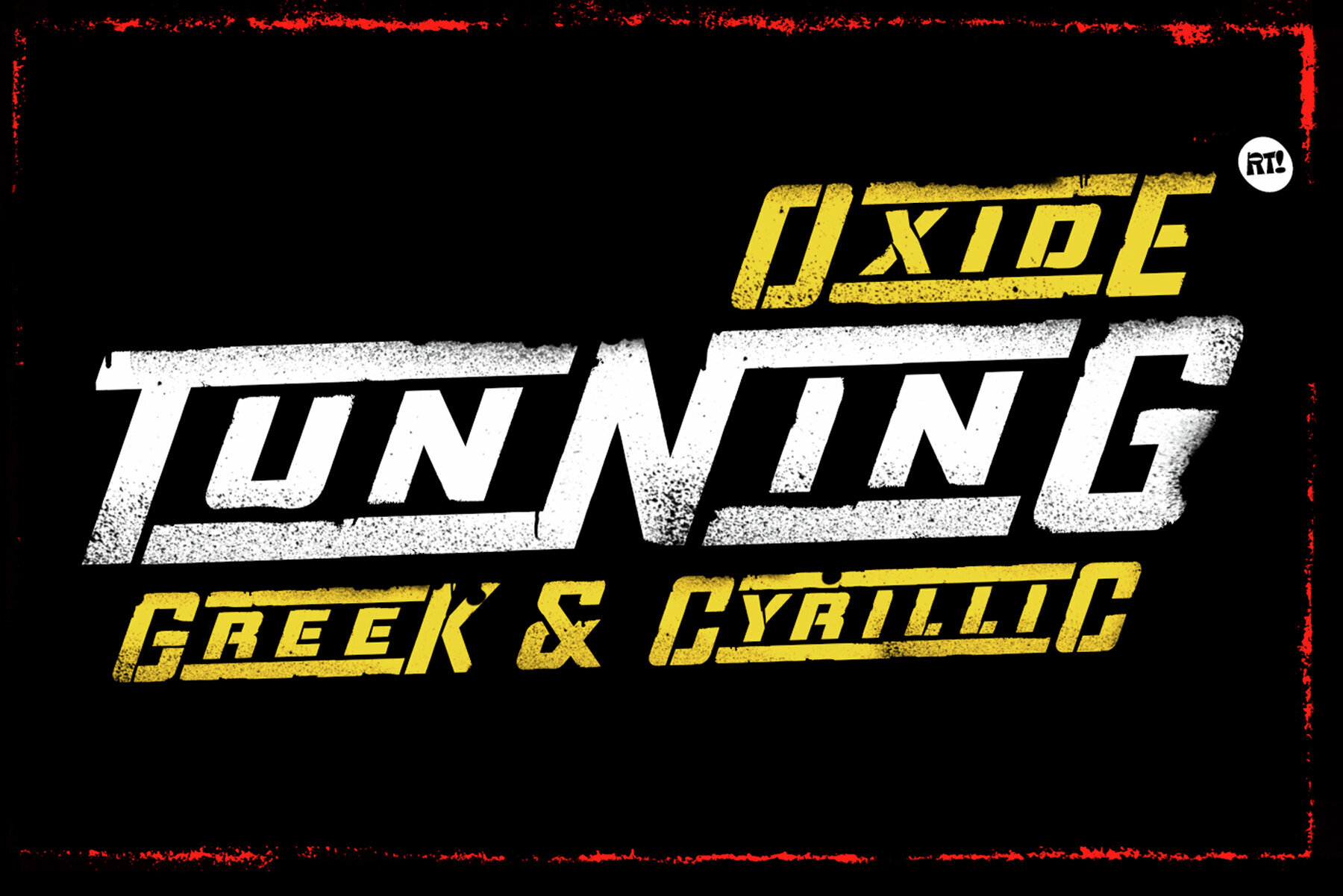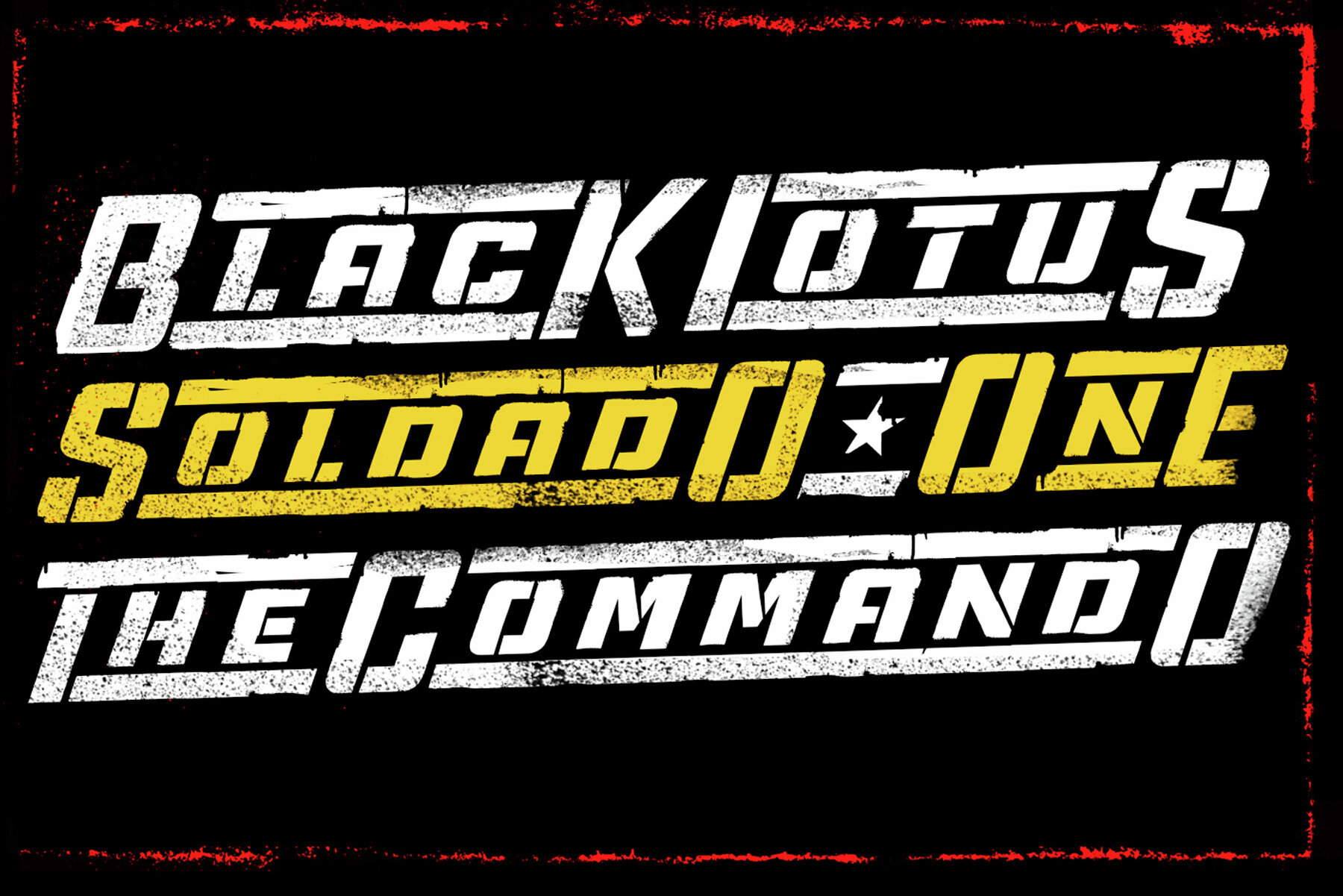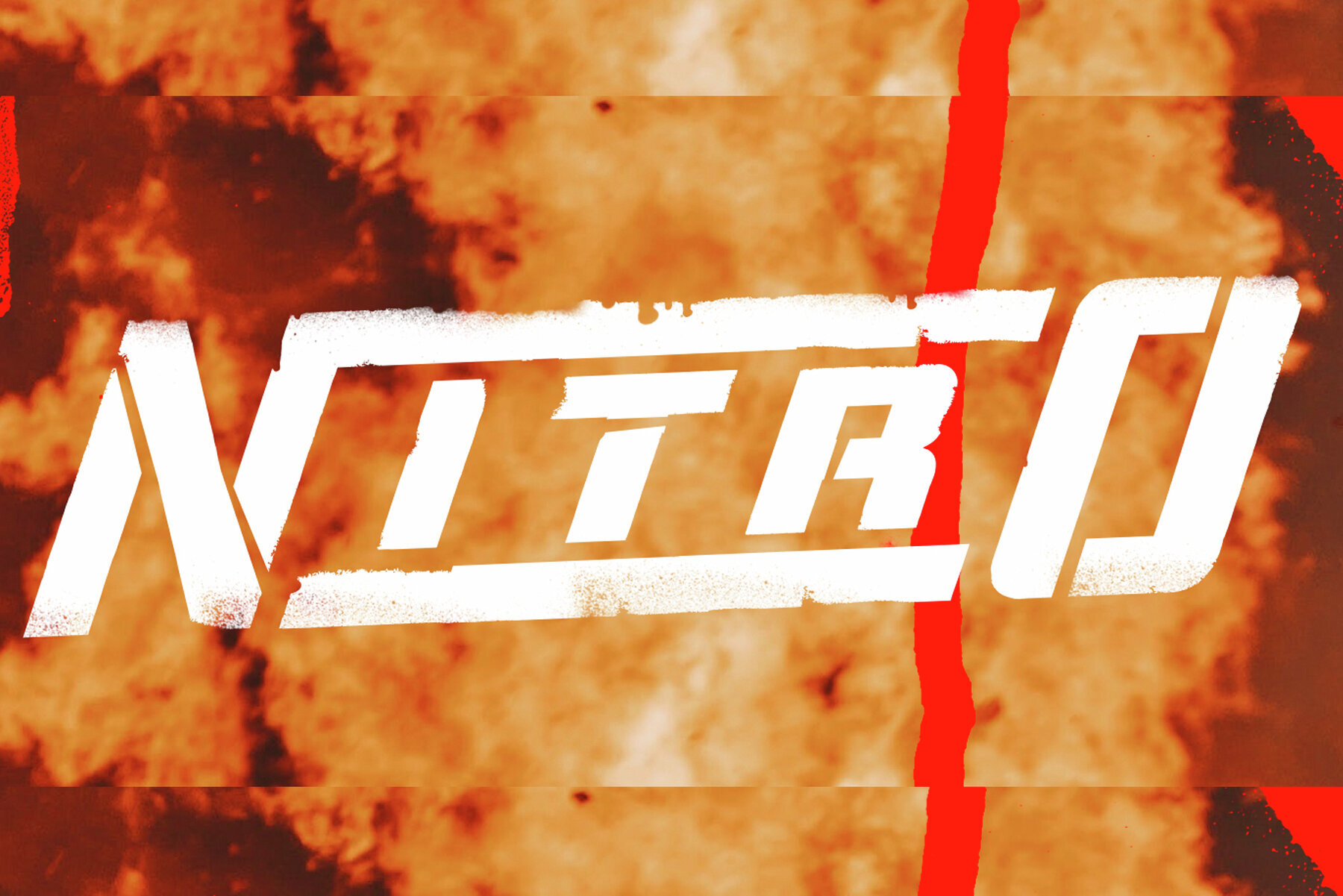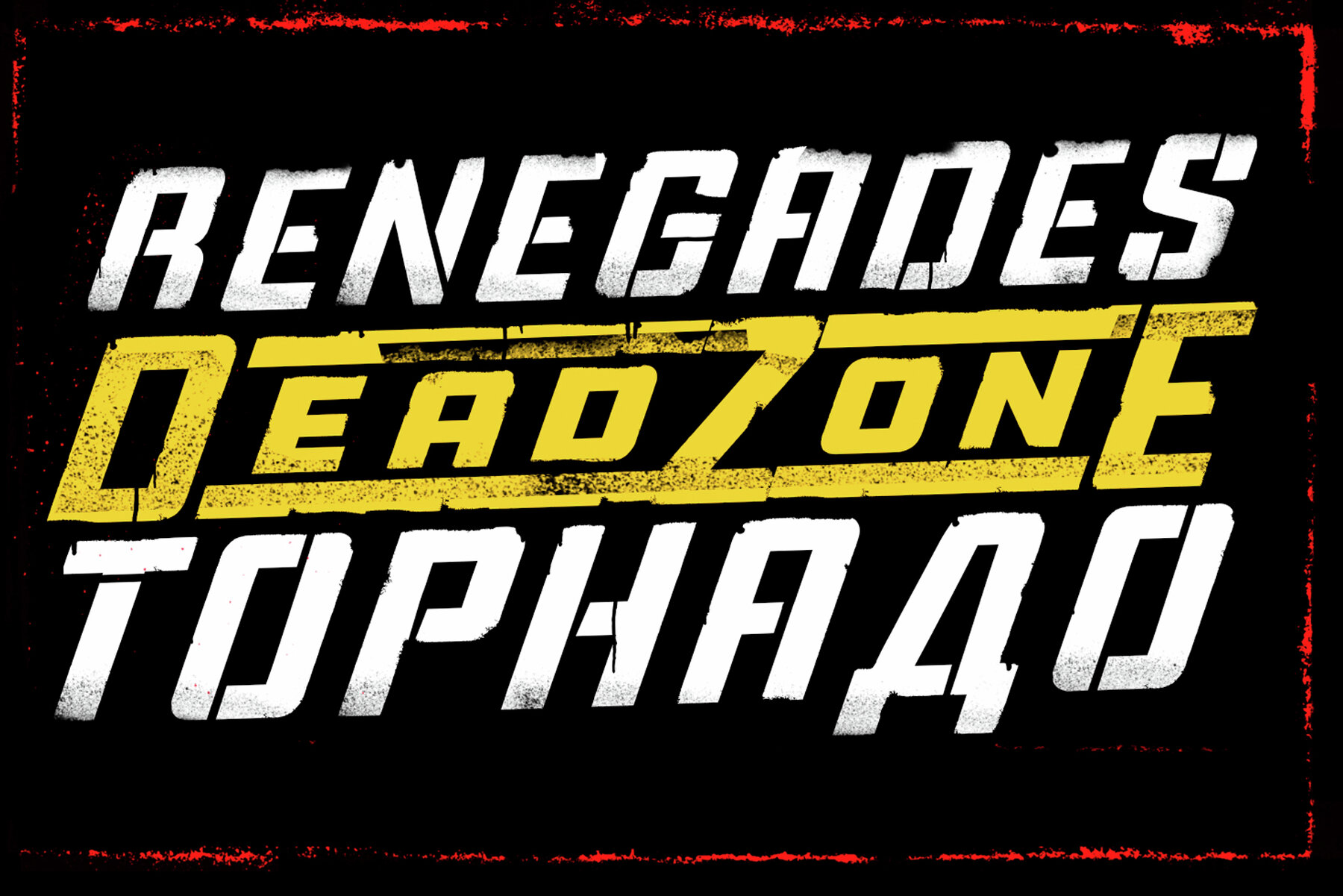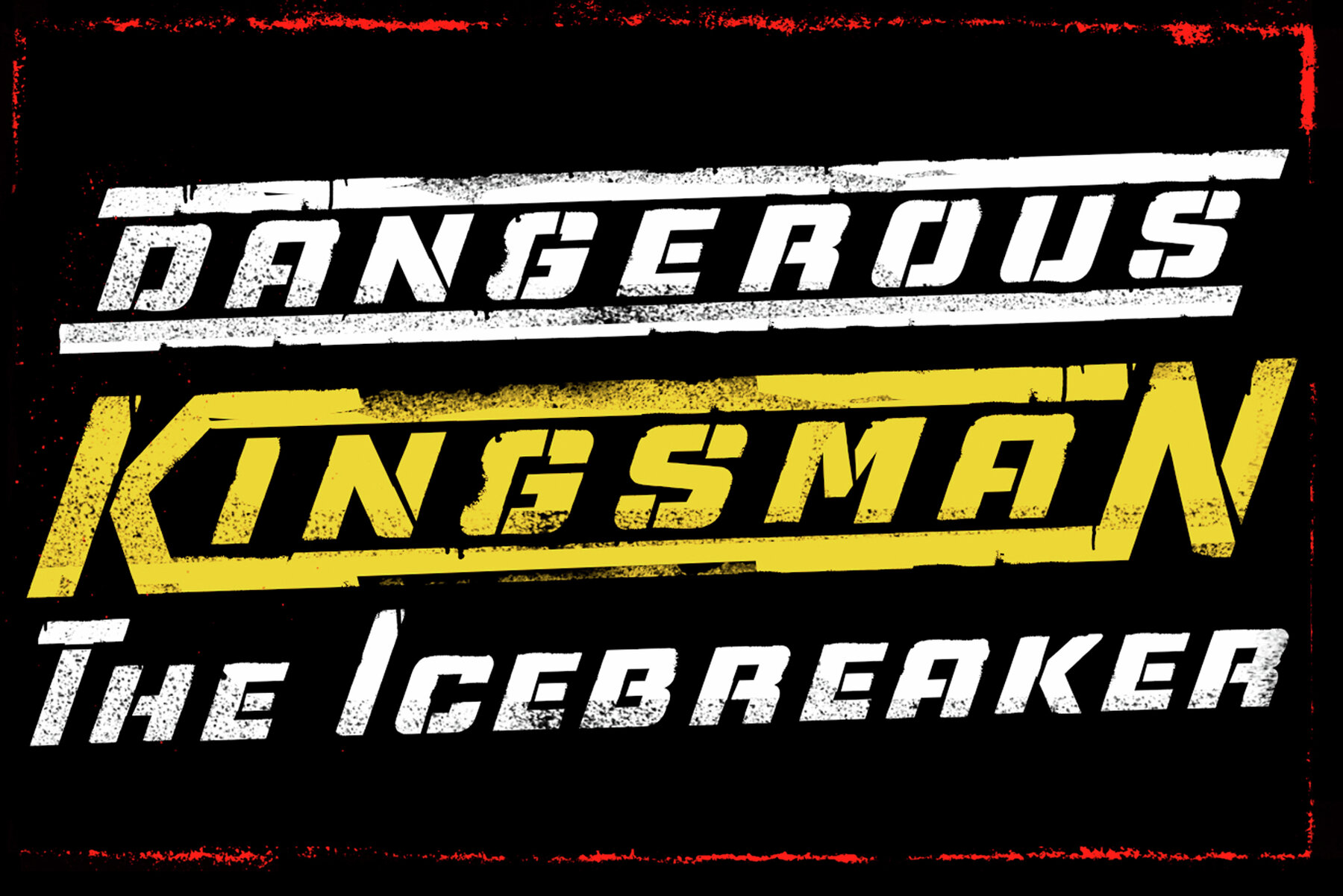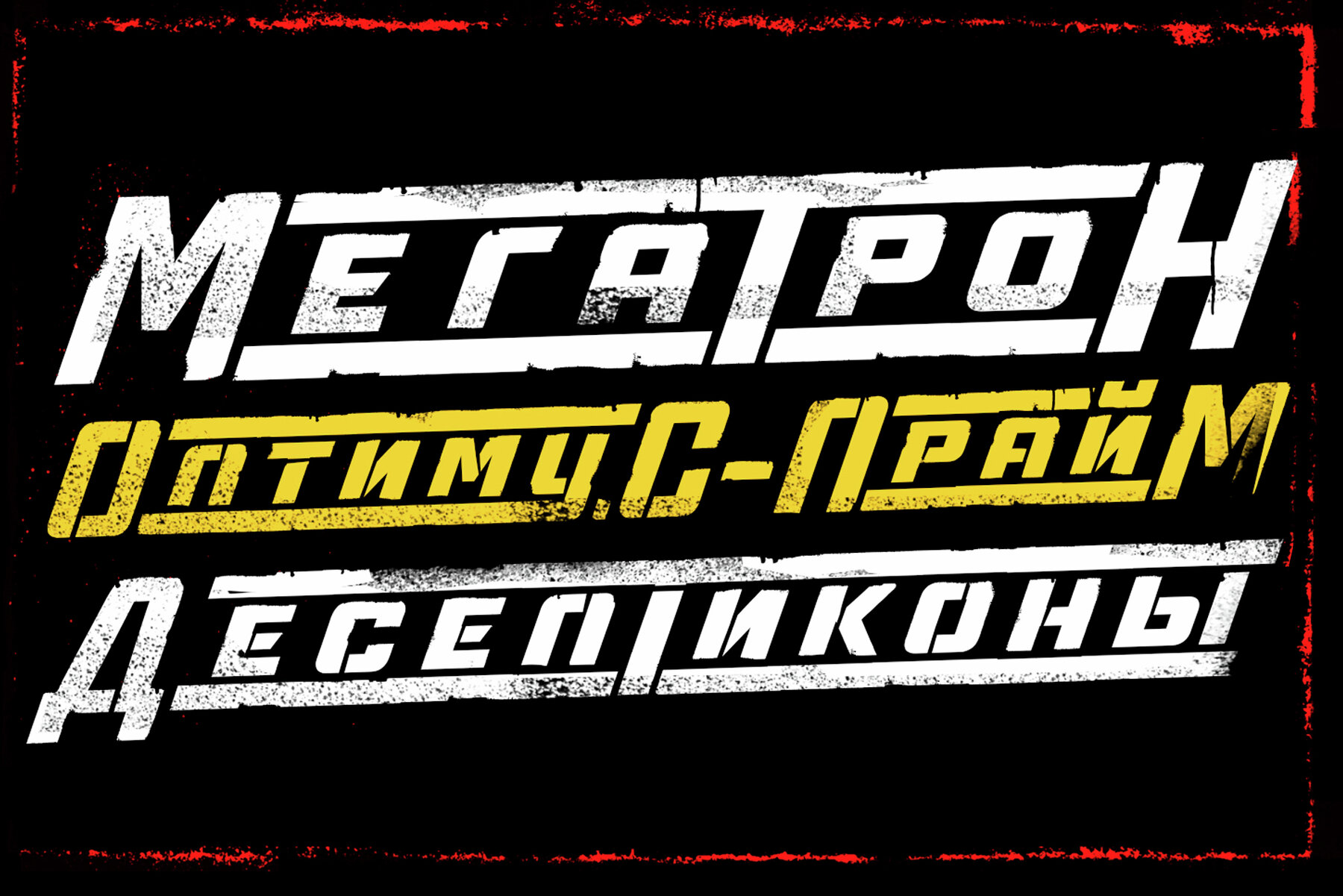
TunNing Oxide Font
TuNninG OxidE Dirt
TuNninG OxidE Dirt Two
TuNninG OxidE Stencil
TuNninG OxidE Stencil Two
TunNing Oxide offers a collection of 4 styles, each designed to capture the intensity of action and suspense titles. This typeface is an excellent choice for projects that demand a bold and impactful visual presence.TunNing Oxide: Dynamic Typeface for Action Titles